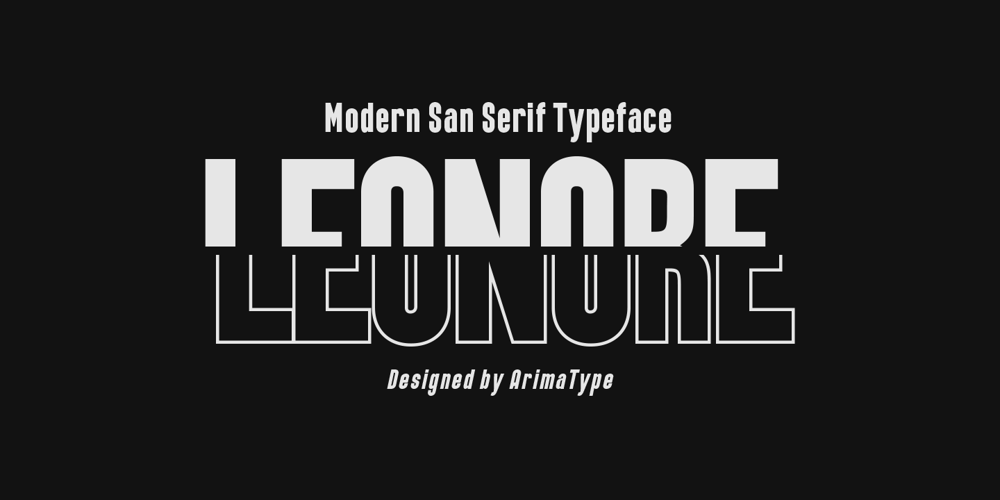
Leonore
Leonore font
Leonore Font Family was designed by Amri Mauludin and published by ArimaType. Leonore contains 3 styles and family package options. Leonore is a strong and elegant family font display. Inspired by the style of design that is currently popular, and this is the answer to all the needs of every idea that you will pour in this modern era, with a thick and solid style in each letter as if this font has a soul in it.Features:*Uppercase & Lowercase*Number & Symbol*Multi-language*Regular, Italic, and OutlineHappy Creating!ArimaType@gmail.com#1266576